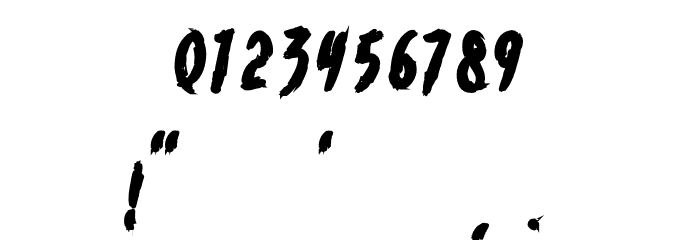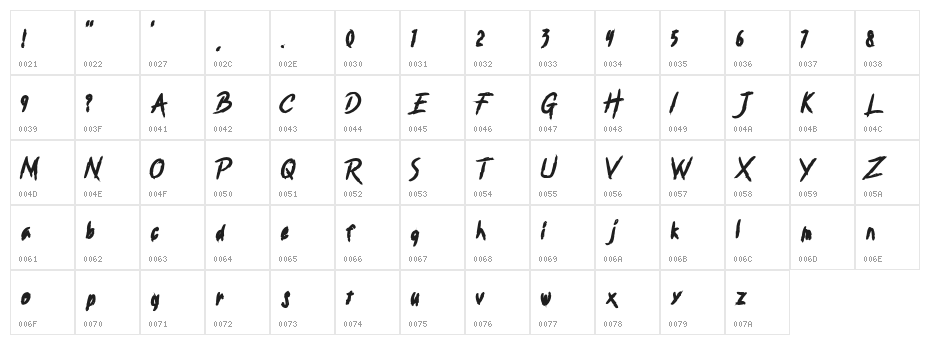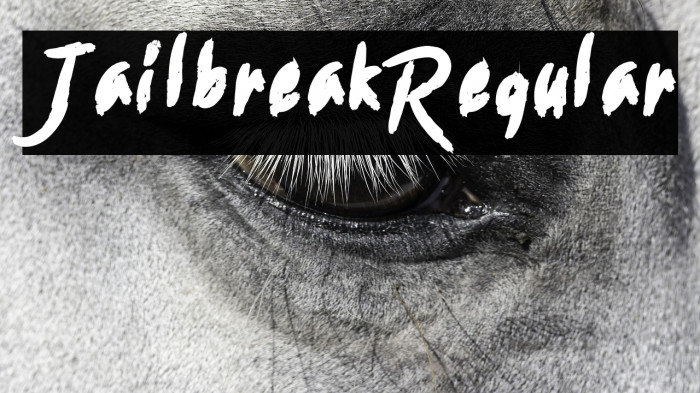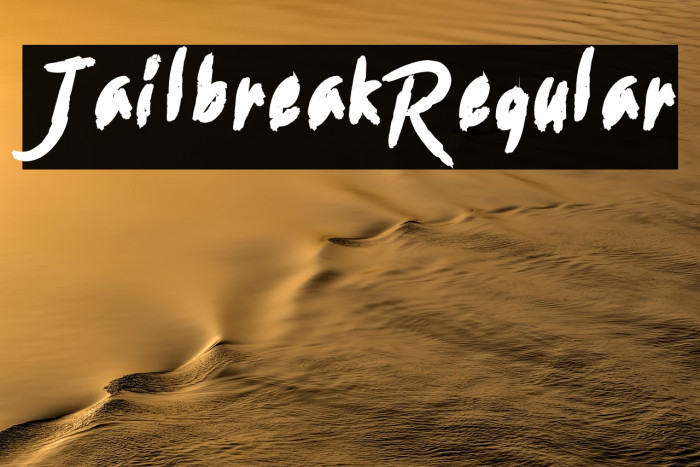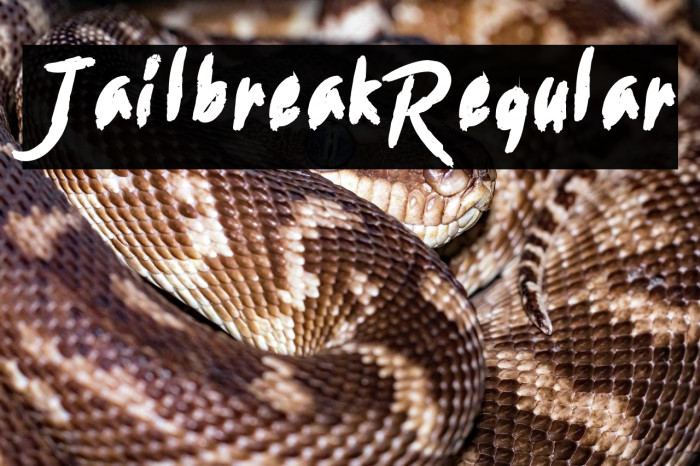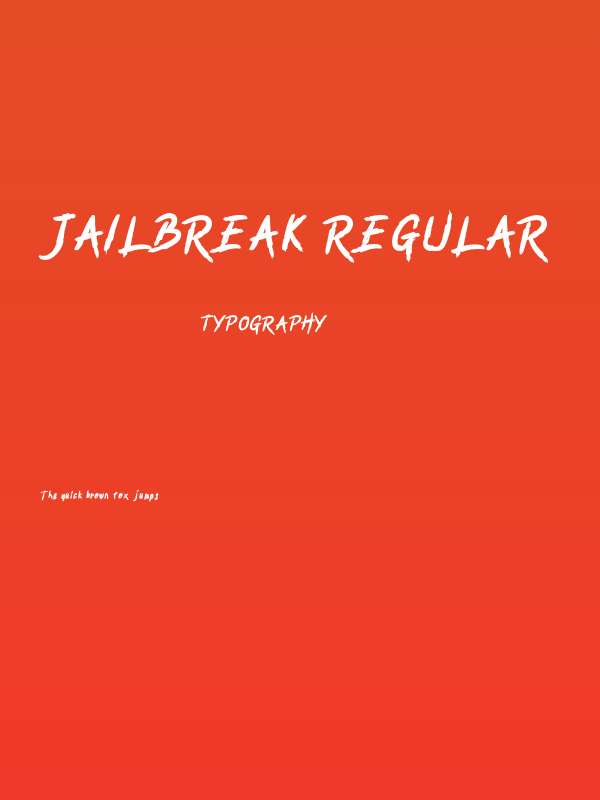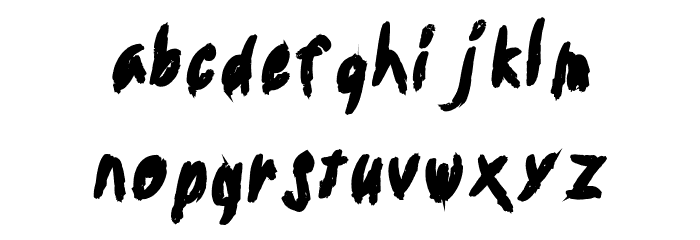
Jailbreak-Regular Font
Jailbreak-Regular Description
This font features a bold and expressive style with a brush-like texture that gives it a dynamic and energetic appearance. The characters are irregular and slightly slanted, adding a sense of movement and spontaneity. The strokes are thick and uneven, creating a high contrast between the thick and thin parts of the letters. This font captures a raw, hand-drawn aesthetic, making it ideal for projects that require a personal and artistic touch. The uppercase and lowercase letters maintain a consistent style, while the numbers and special characters complement the overall design.